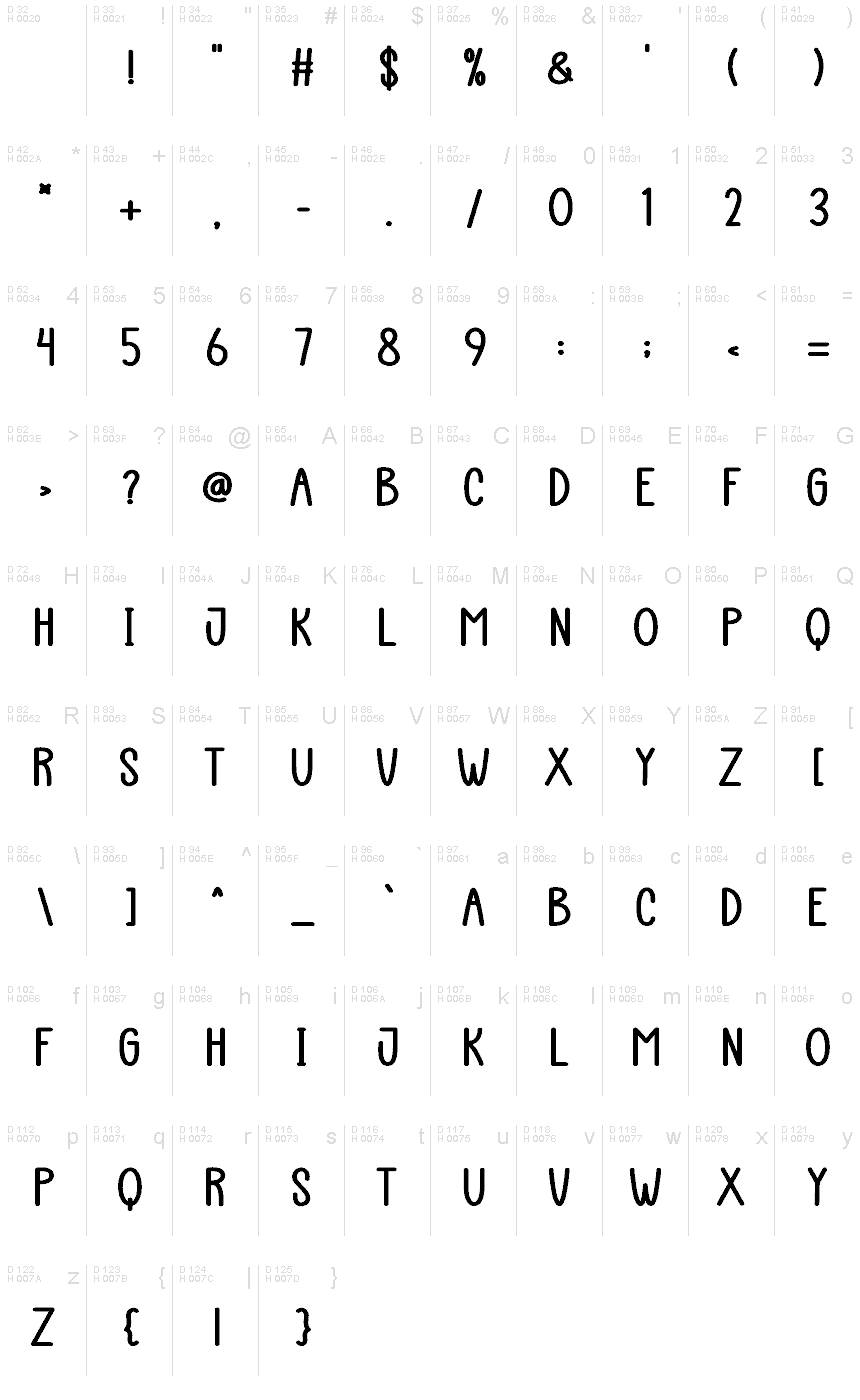
Autogram
Autogram font by Andi Moz is a handwritten font that breathes life and comfort beyond its lower case text. It is a condensed font with rounded and smooth edges for each of its characters. It has an overall friendly, casual, and approachable look. Add to that the modern style touch and this becomes one of those fonts intended for seeking reader engagement.